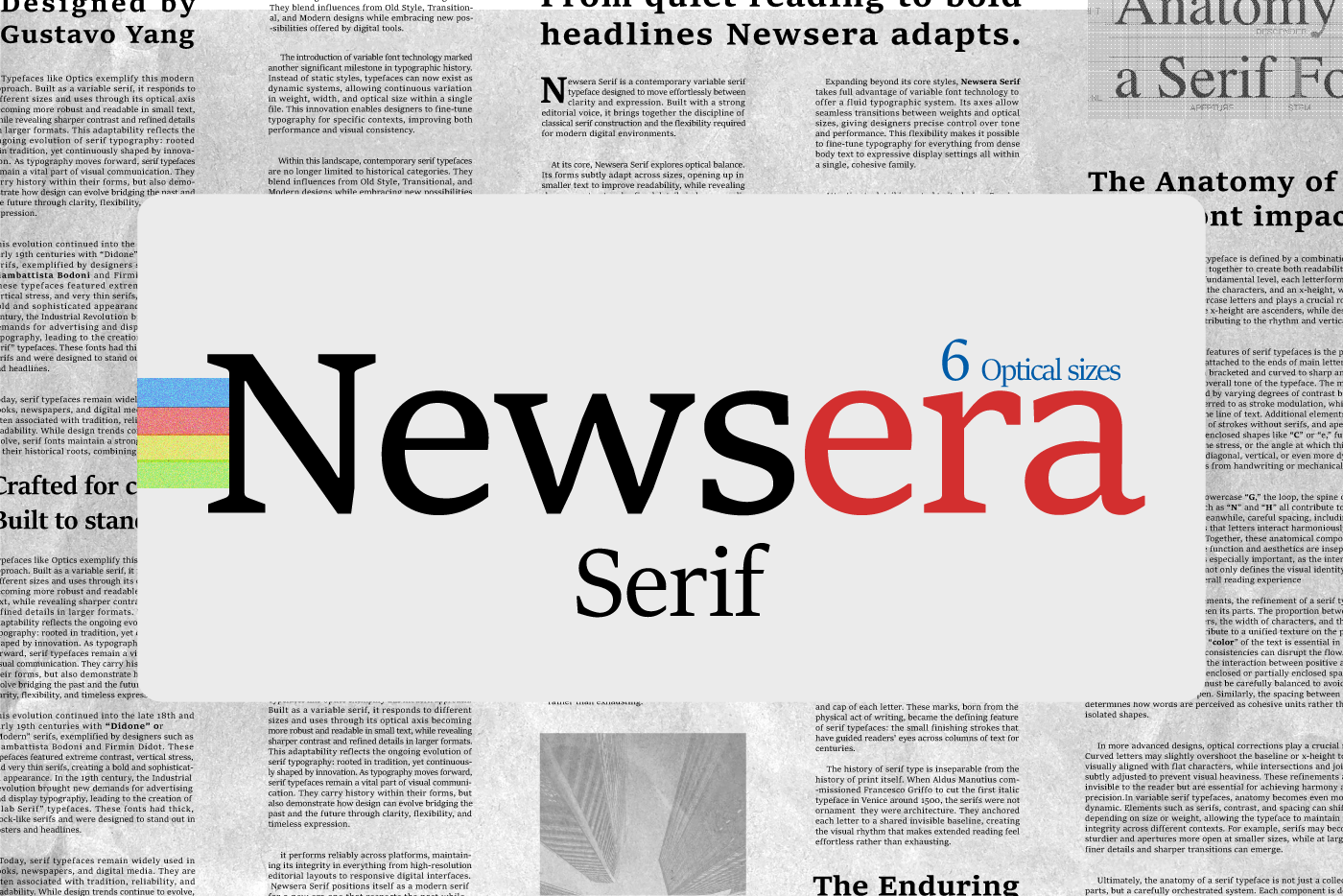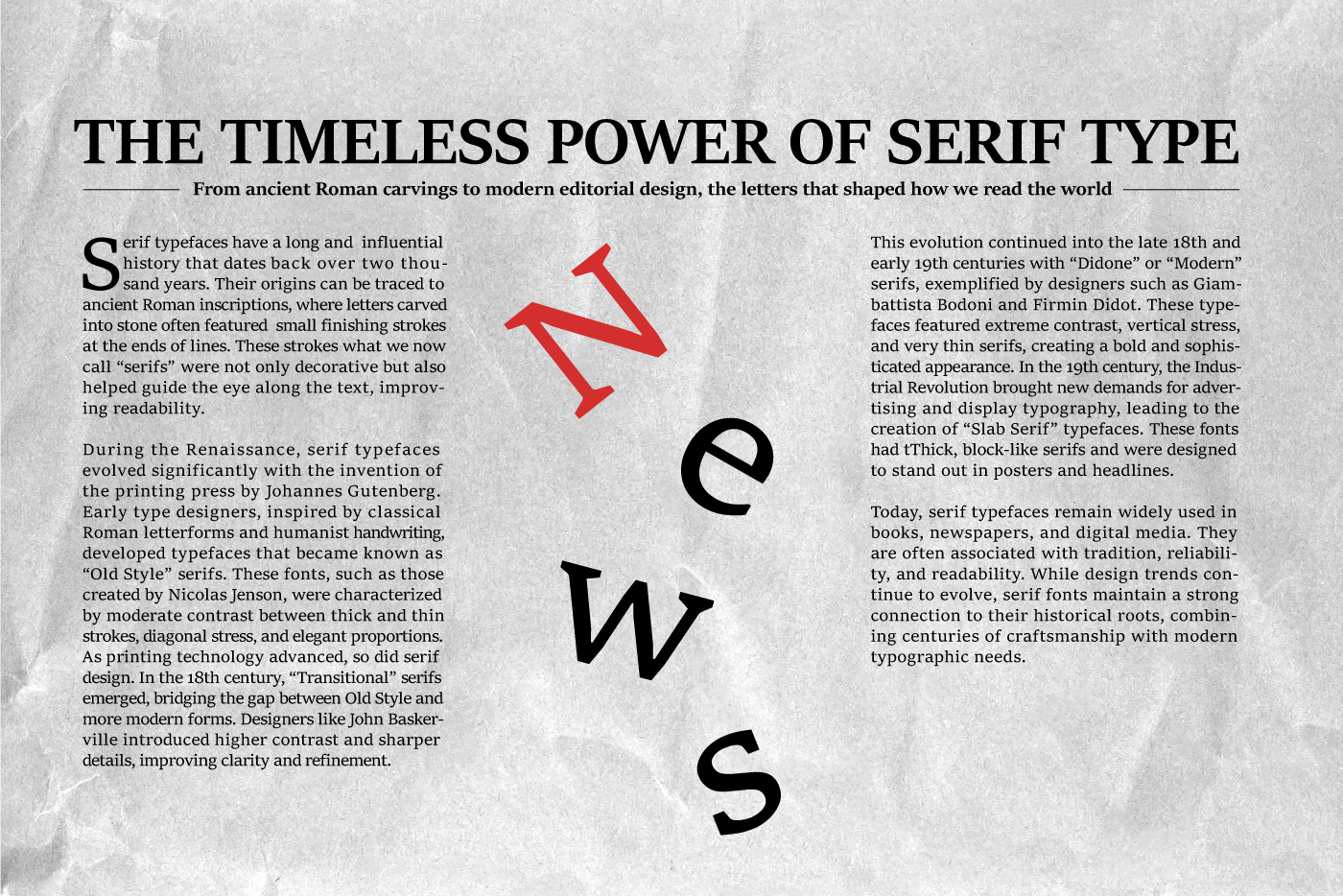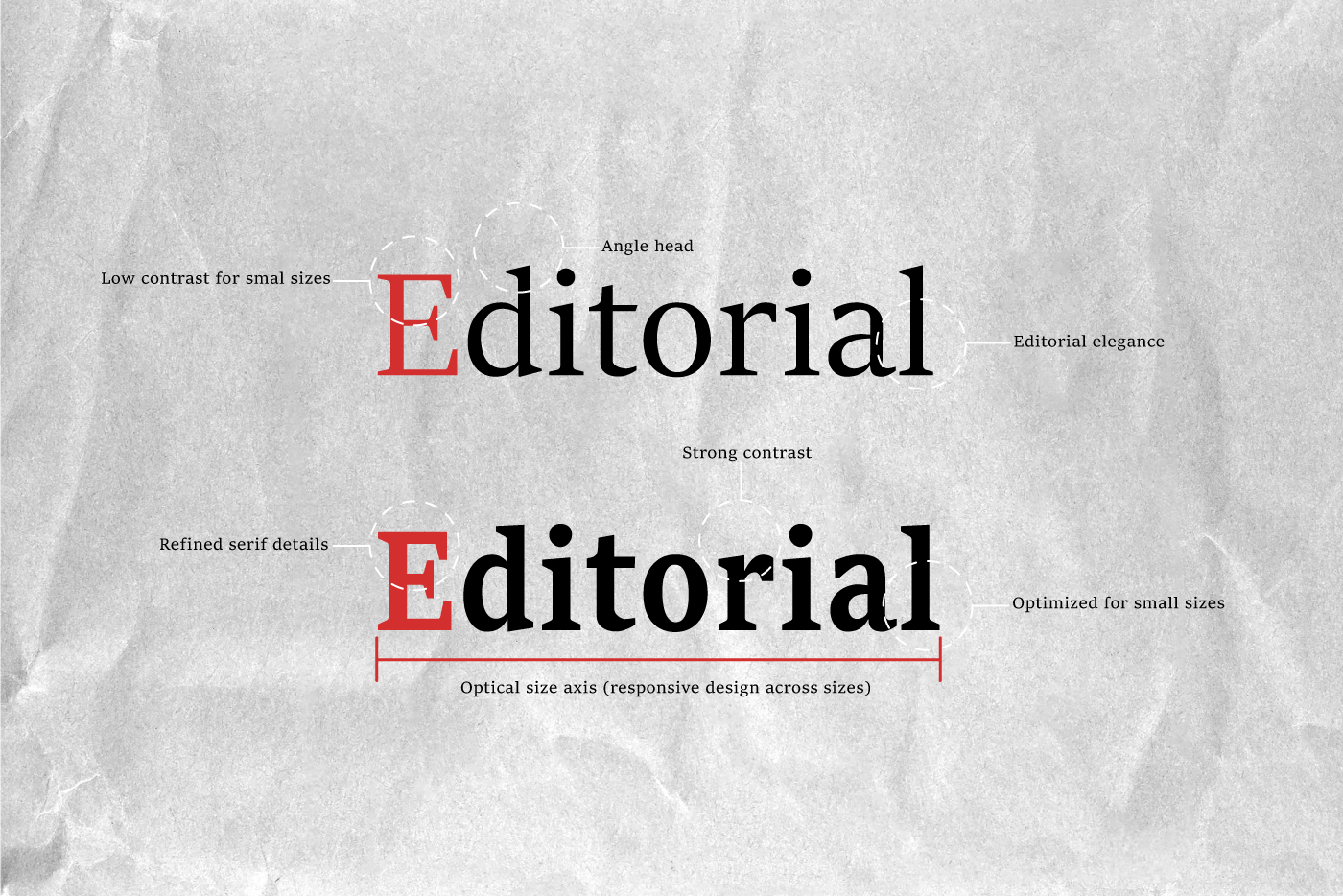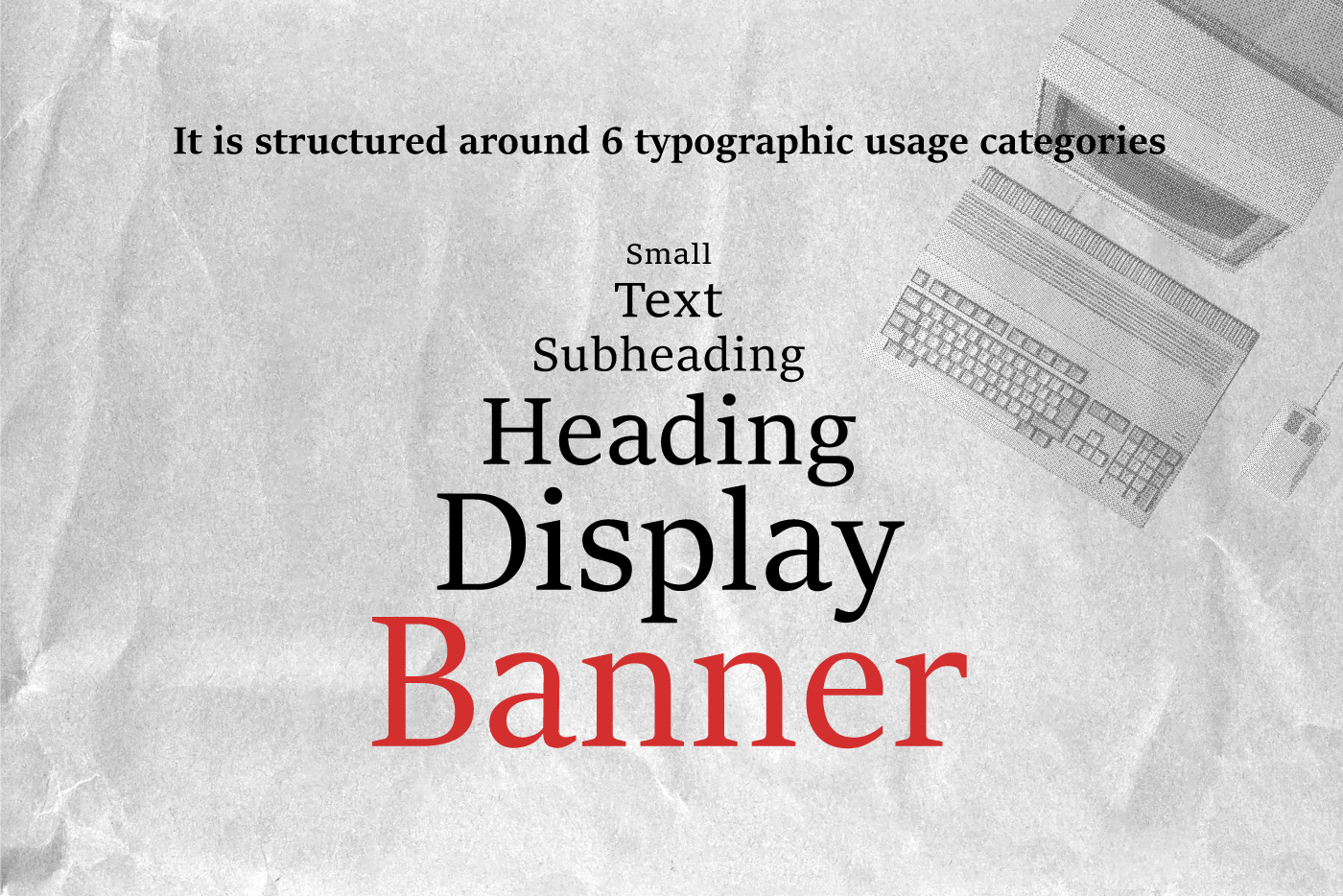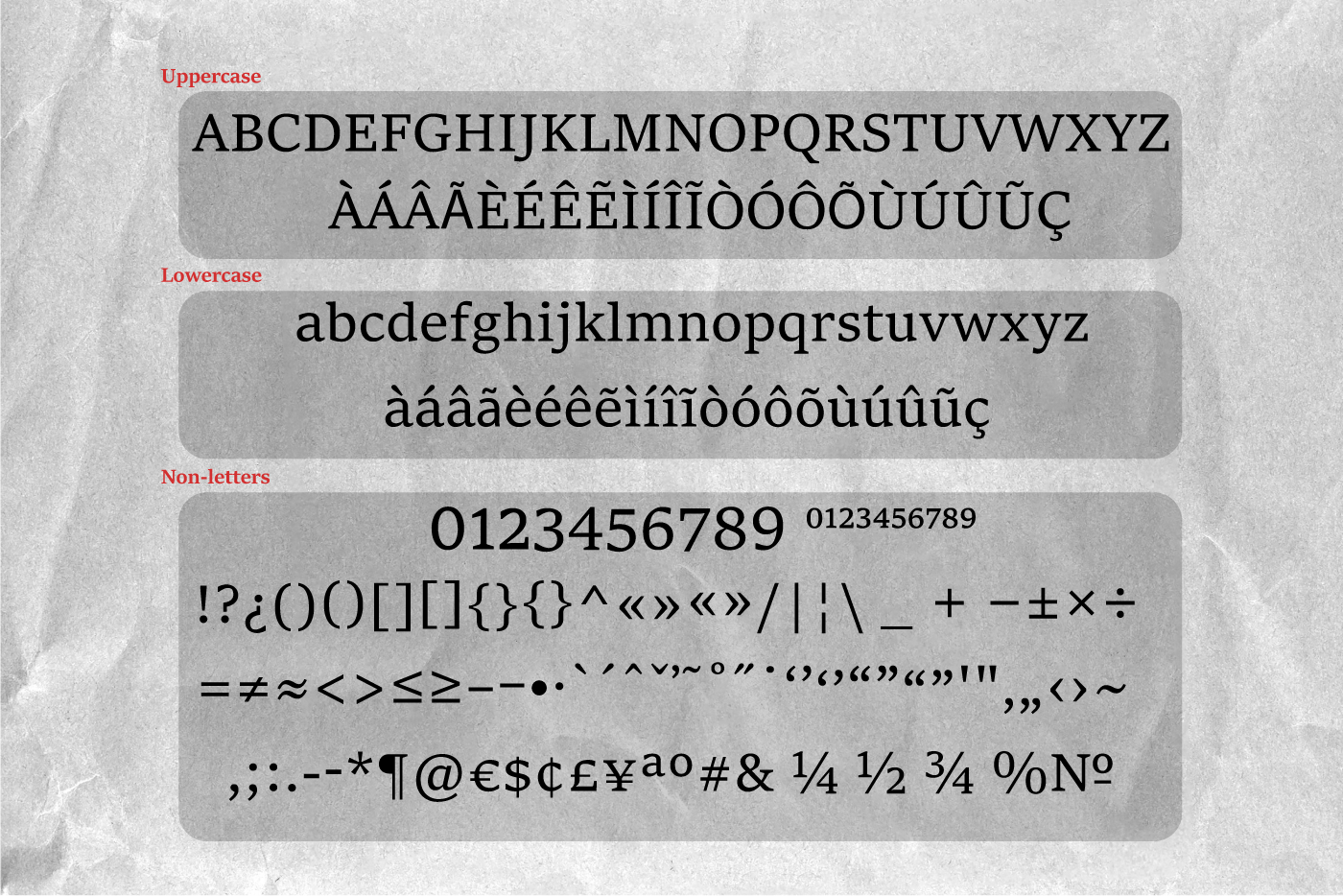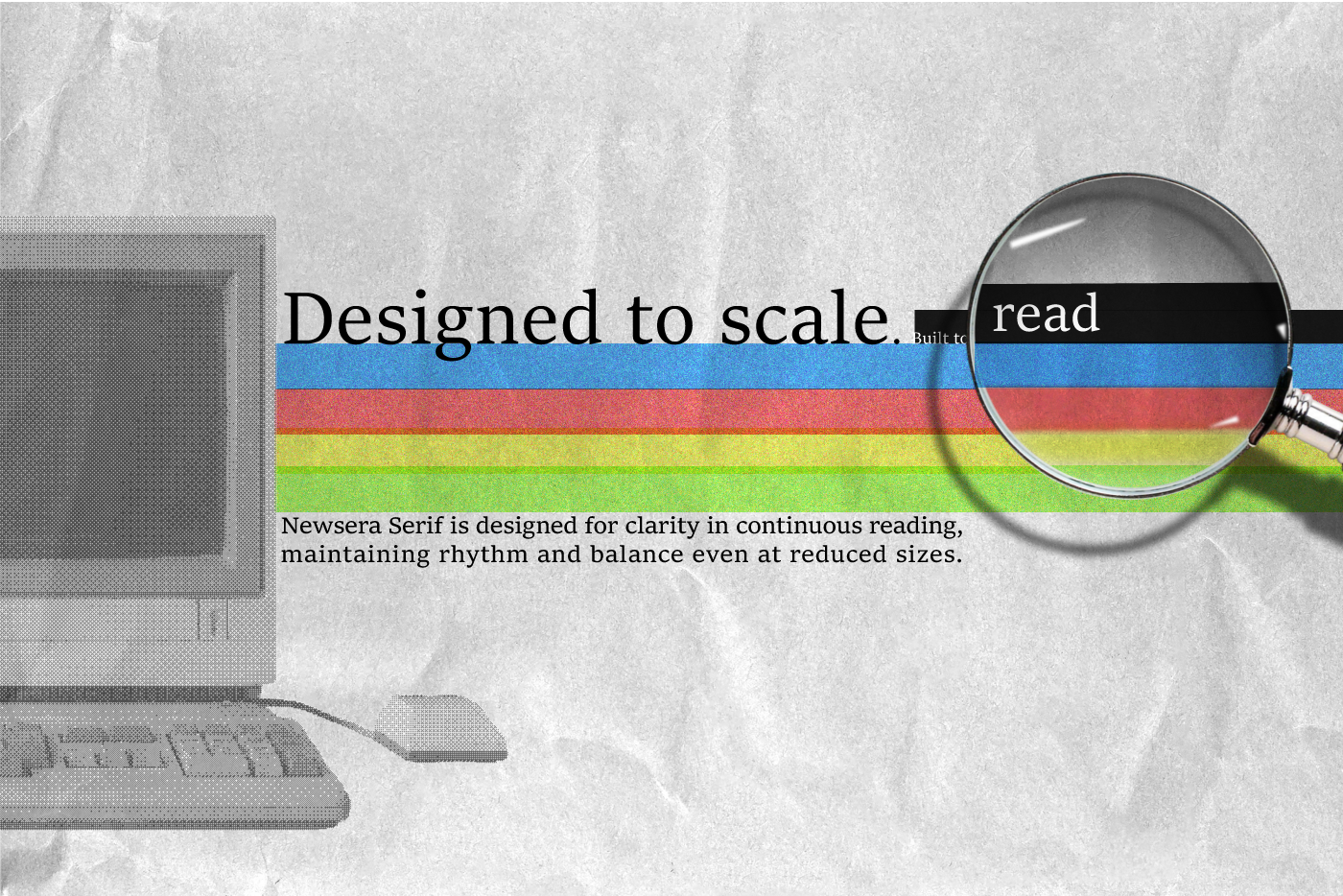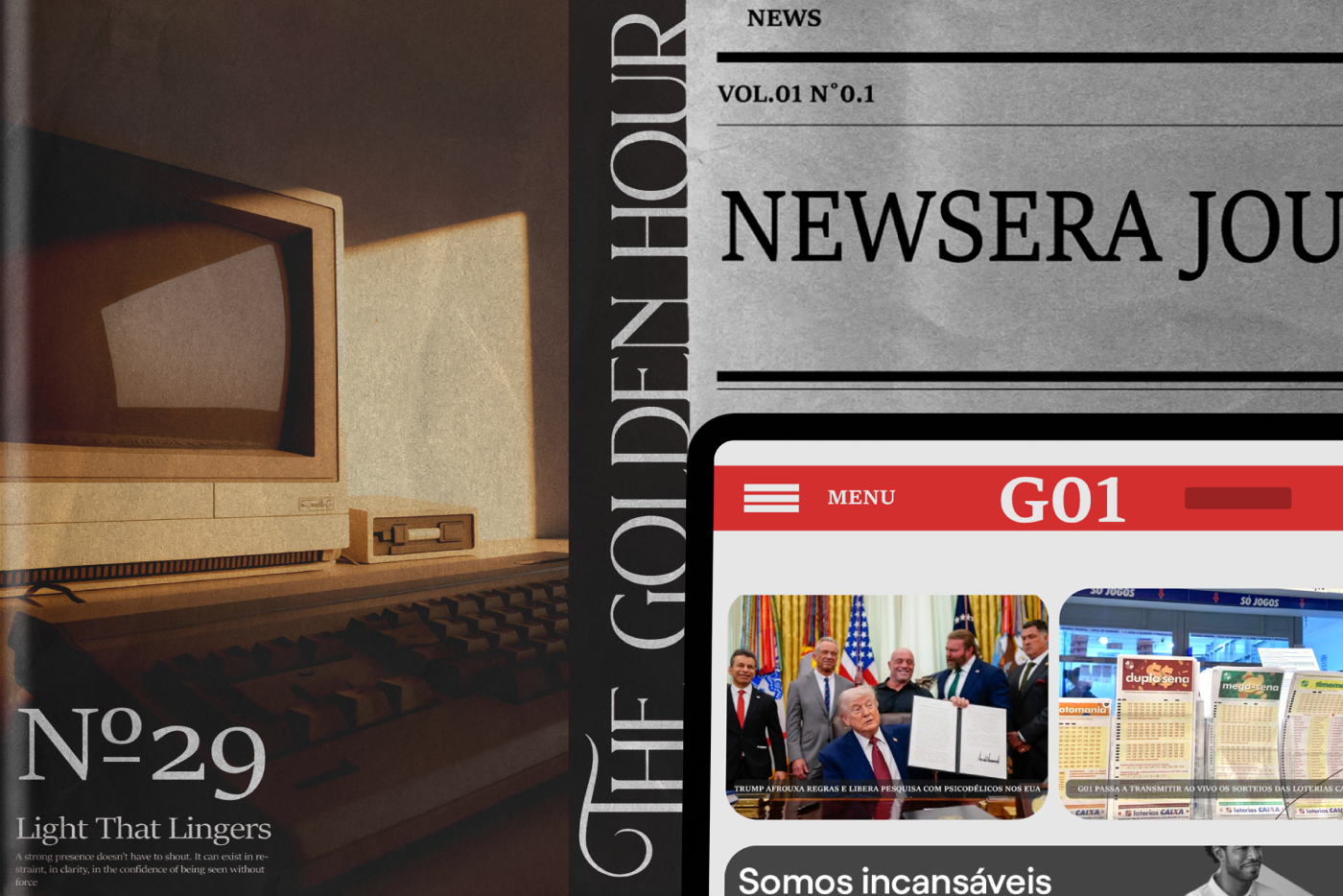
Newsera - Free Serif Typeface
Newsera Serif font is a contemporary serif font designed by Gustavo Yang that strikes a confident balance between editorial elegance and functional clarity. Built on classical serif principles, it introduces controlled contrast and a measured rhythm across its letterforms that enhance readability while maintaining a distinct, modern voice. Perfect for newspaper font in print publications, digital editorial layouts, branding systems, and high-end stationery.
Beautifully Crafted and Surprisingly Versatile
I've been trying out Newsera recently, and I was genuinely impressed by how polished it feels. It has that classic serif elegance that immediately gives designs a more premium look, but it doesn't feel old-fashioned or overly formal.
What I like most is how versatile it is. It works just as well for headlines and branding as it does for editorial layouts. The letterforms have a lovely balance of character and readability, making text feel refined without drawing attention away from the content itself.
There’s a real sense of care in the details, from the proportions to the contrast throughout the typeface. It manages to feel both timeless and contemporary, which isn't something every serif can achieve.
Overall, Newsera is a fantastic addition to any designer's font library. It's elegant, reliable, and full of personality. Definitely a typeface I'll be coming back to for future projects.
Une Élégance Serif Moderne
La police Newsera combine une esthétique éditoriale raffinée avec une touche contemporaine très expressive. Ses contrastes marqués, ses courbes élégantes et ses détails sophistiqués lui donnent une forte personnalité visuelle, idéale pour le branding, les magazines de mode, les affiches et les titres premium.